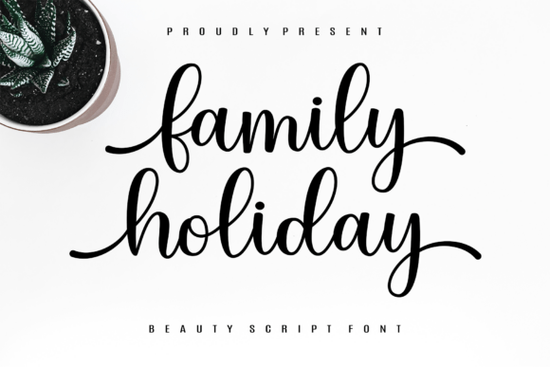
The Family Holiday Font is a beautifully flowing script font with an elegant, hand-lettered feel. If you've been searching for a typeface that brings warmth and sophistication to your designs, this one delivers exactly that. Its graceful curves and well-crafted letterforms make it a solid pick for anyone working on invitations, branding, or print-on-demand projects that call for a personal, heartfelt touch.
What Makes the Family Holiday Font Stand Out?
Plenty of script fonts look nice at first glance, but fall apart once you start using them in real projects. The Family Holiday font avoids that problem. Each letter flows into the next with a natural rhythm, almost like someone sat down and hand-wrote it with care. The connections between characters feel intentional, not forced.
Here's what you'll notice right away:
- Smooth, connected letterforms that look great at both small and large sizes
- A balanced mix of elegance and readability it's decorative without being hard to read
- Consistent stroke weight that keeps your text looking clean, even in longer phrases
- A timeless script style that works across seasons and project types
For designers who need a versatile script font that doesn't lean too casual or too formal, this one hits a sweet spot. It sits comfortably in that middle ground where you can use it for both a wedding invitation and a holiday greeting card without it feeling out of place.
What Types of Projects Work Best With This Font?
This is where the Family Holiday font really shines. Because of its elegant yet approachable style, it works well across a surprisingly wide range of creative projects. Here are some ideas based on what designers and crafters commonly use it for:
- Wedding invitations and save-the-dates the flowing script adds a romantic, polished feel
- Greeting cards perfect for holiday cards, thank-you notes, and birthday messages
- Logo design especially for small businesses in beauty, lifestyle, or boutique retail
- Print-on-demand products mugs, tote bags, and t-shirts with short quotes or names
- Social media graphics Instagram quotes, Pinterest pins, and story templates
- Scrapbooking and digital journaling adds a personal, handcrafted quality
If you sell on platforms like Etsy or Redbubble, pairing this font with a strong design concept can help your products stand out. Customers are drawn to designs that feel personal and handcrafted, and a script font like this one delivers that impression without any extra effort on your part.
How Does It Compare to Other Script Fonts?
The Family Holiday font holds its own in this lineup because of its balanced elegance. It doesn't try too hard to be fancy or too casual. That middle ground makes it one of the more flexible options for everyday design work.
Tips for Getting the Most Out of Script Fonts
Using a script font well takes a little more thought than dropping in a standard sans-serif. Here are a few practical tips:
- Give it breathing room. Script fonts look best with slightly more letter spacing than you'd normally use. A little extra room between characters lets the curves show without feeling cramped.
- Pair it with a simple companion font. A clean sans-serif for body text keeps the focus on your script headline without overwhelming the design.
- Use it for short text. Script fonts are designed for headlines, names, and short phrases. Avoid using them for paragraphs they're hard to read in long blocks.
Quick Checklist Before You Start Designing
- Test it at different sizes to find the right fit for your project
- Pair it with one or two complementary fonts
- Adjust letter spacing if the text looks too tight
- Create a sample mockup before finalizing your design
If you're looking for a script font that balances beauty with everyday usability, the Family Holiday font is worth adding to your collection. It handles everything from elegant invitations to casual POD designs with ease, and its clean craftsmanship means you won't spend extra time tweaking letter connections or kerning. Give it a try on your next project and see how it fits your creative workflow.